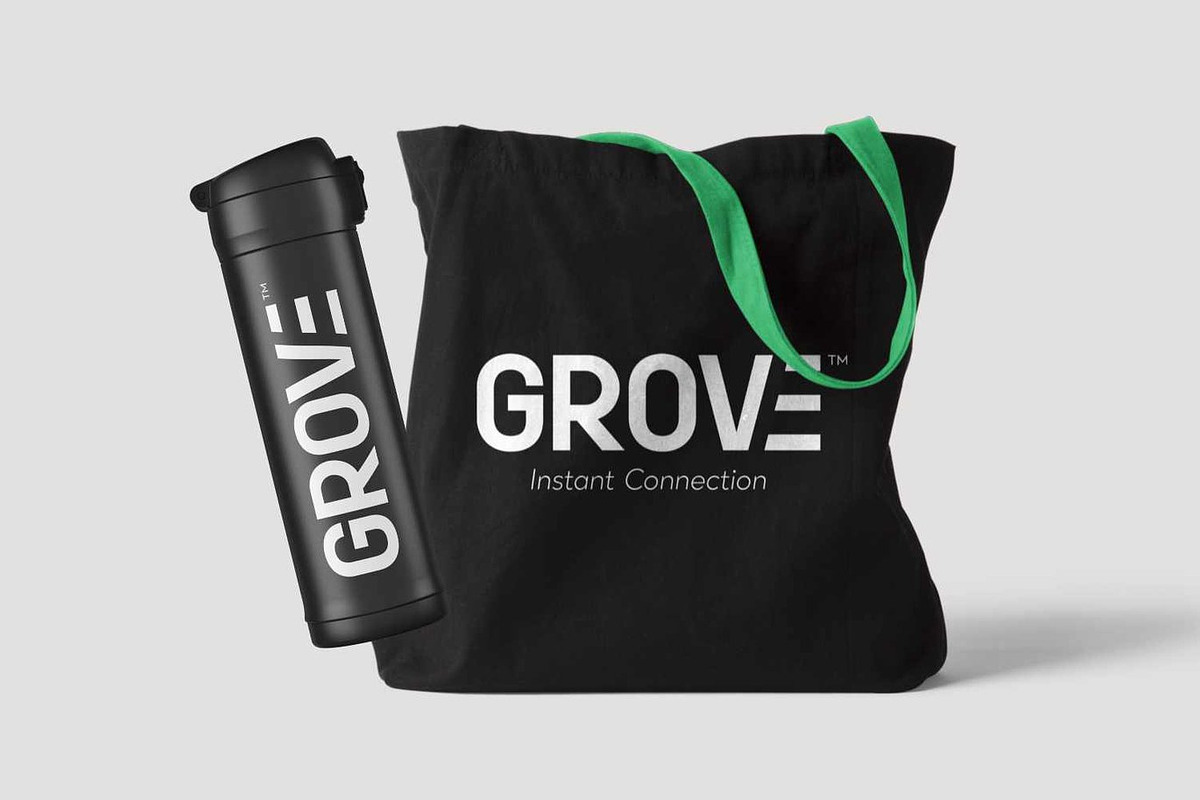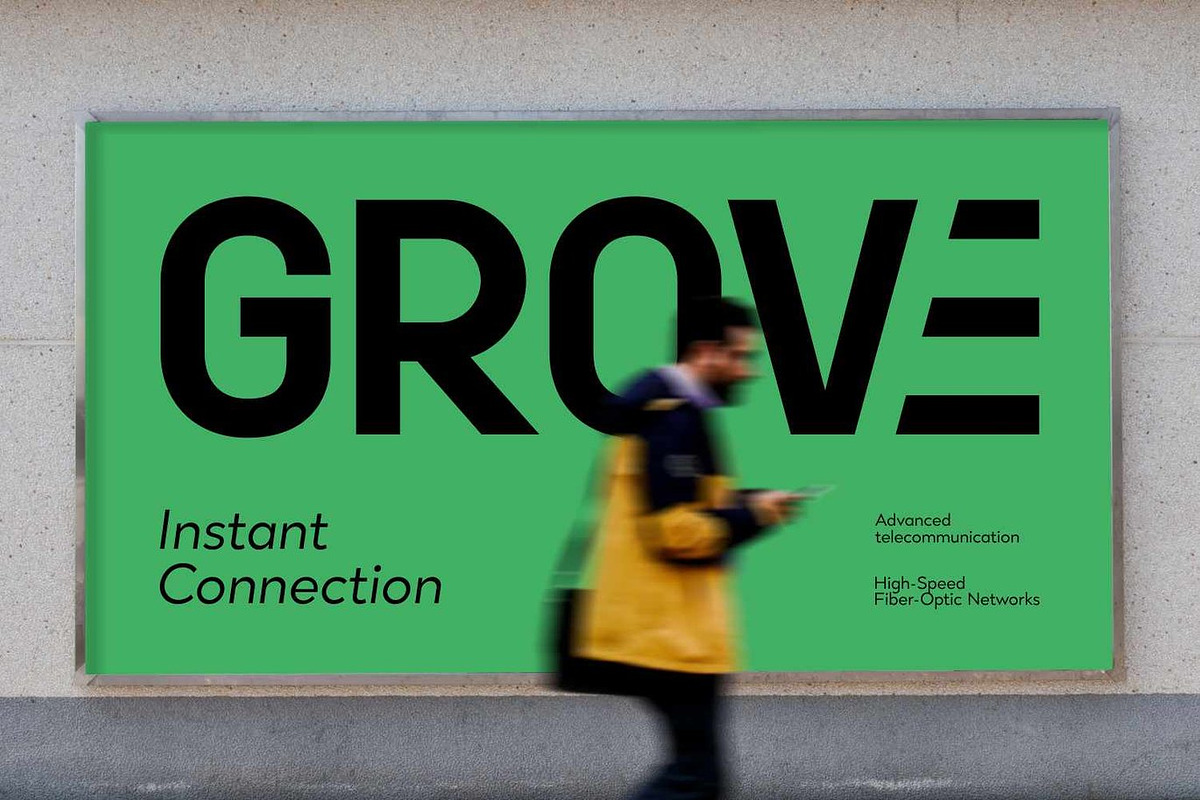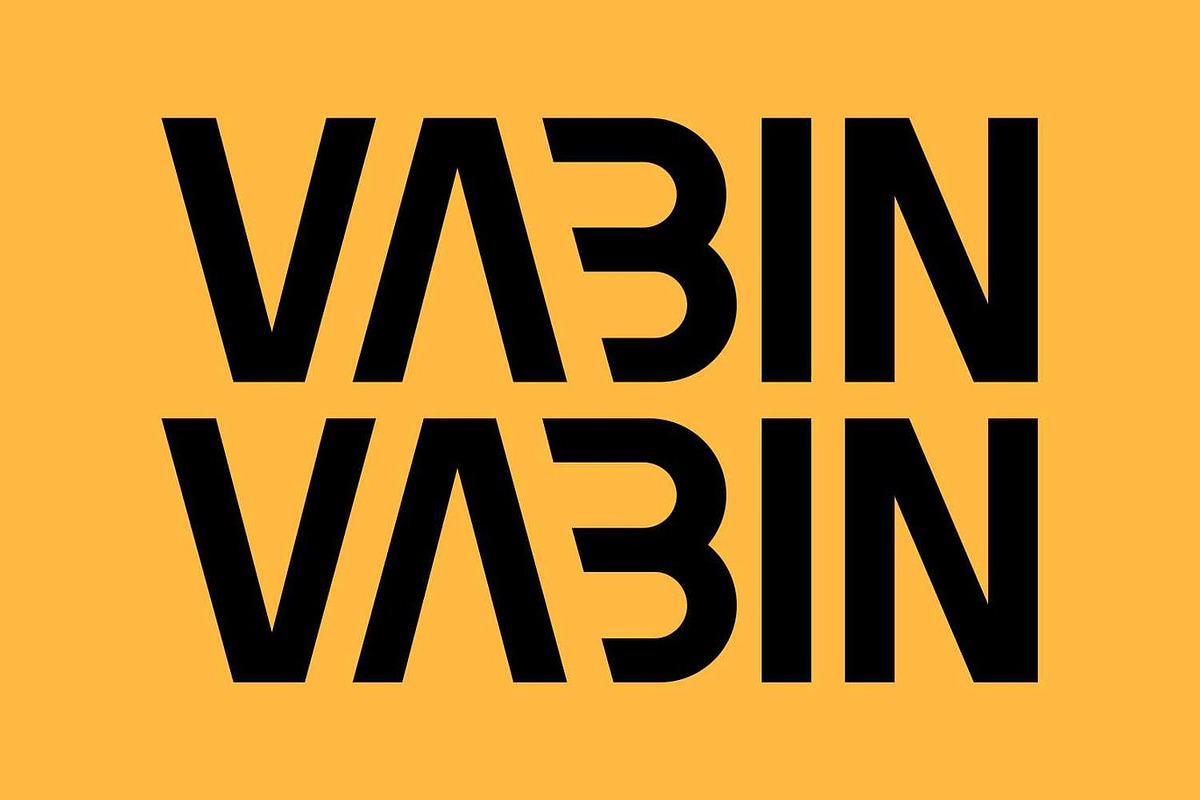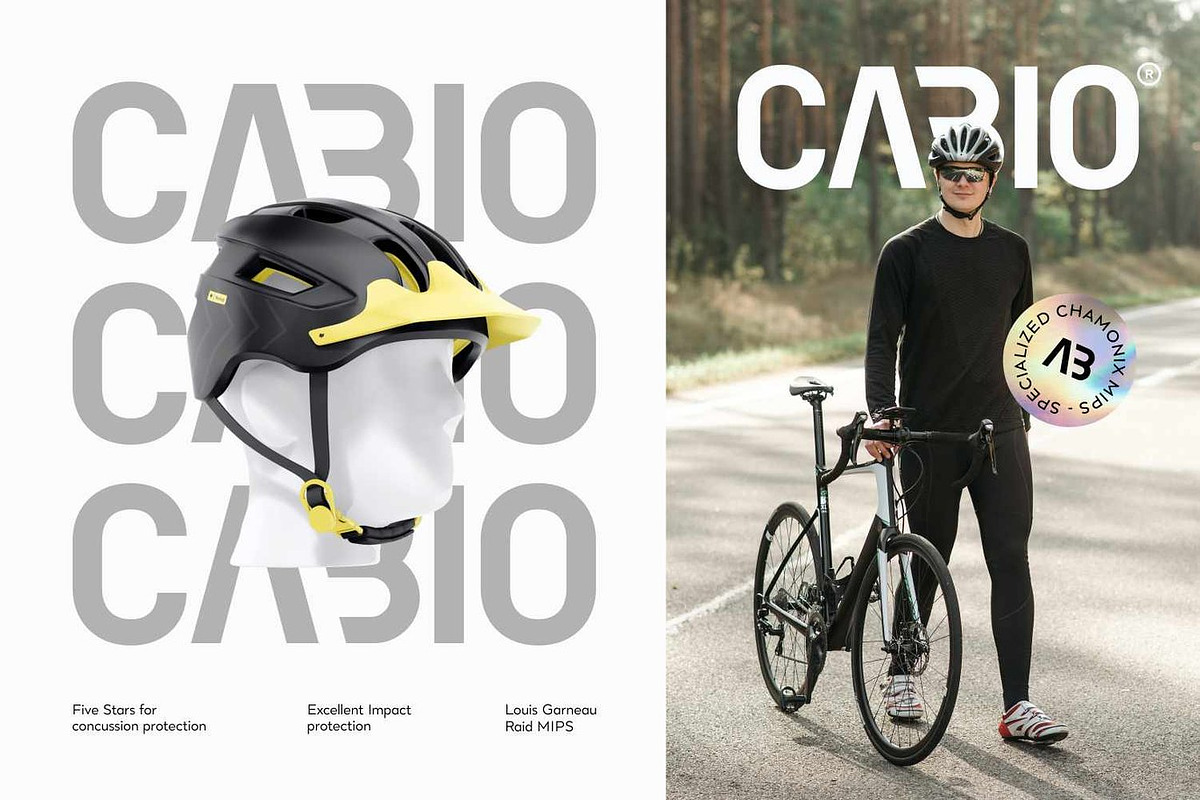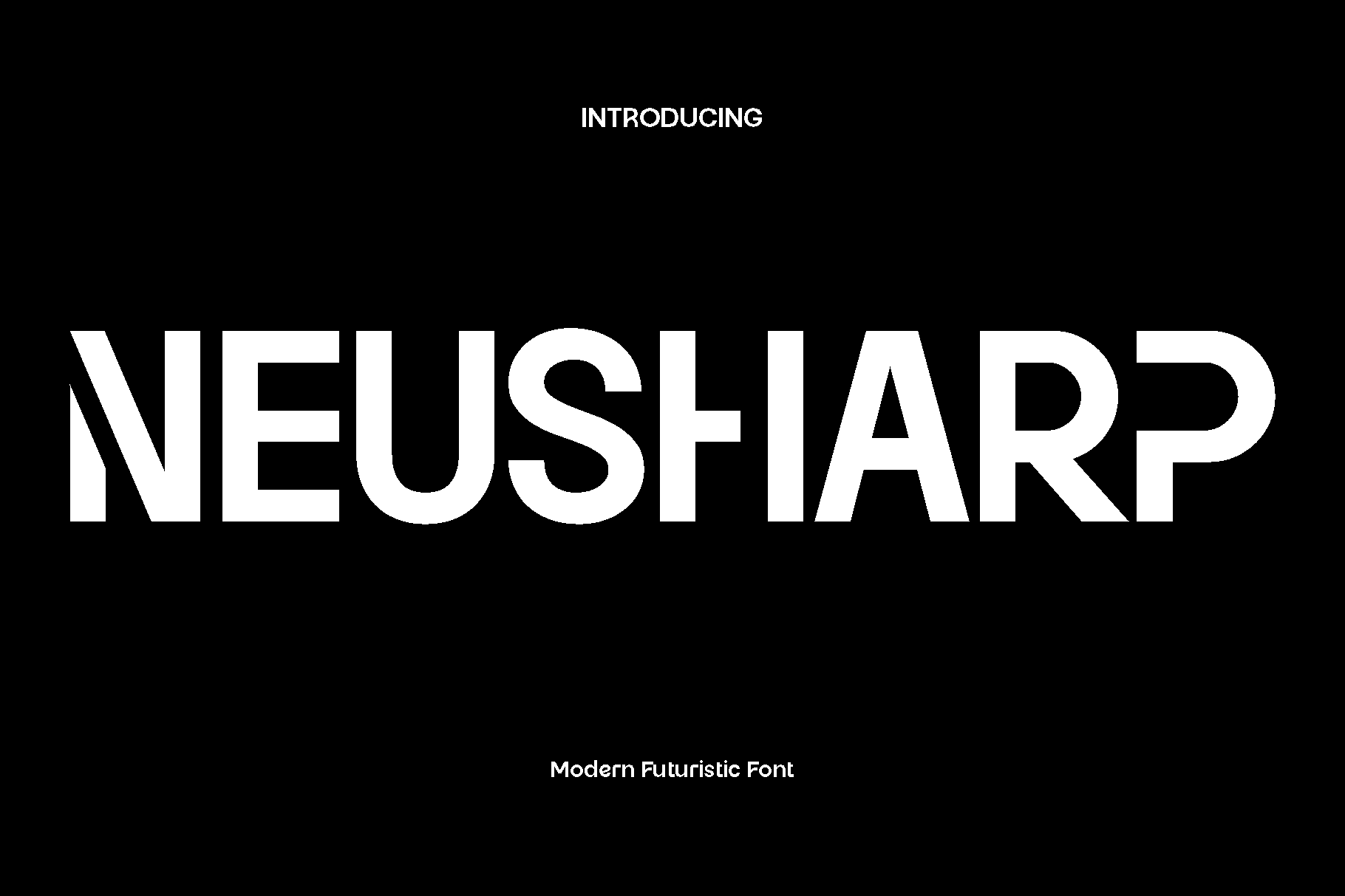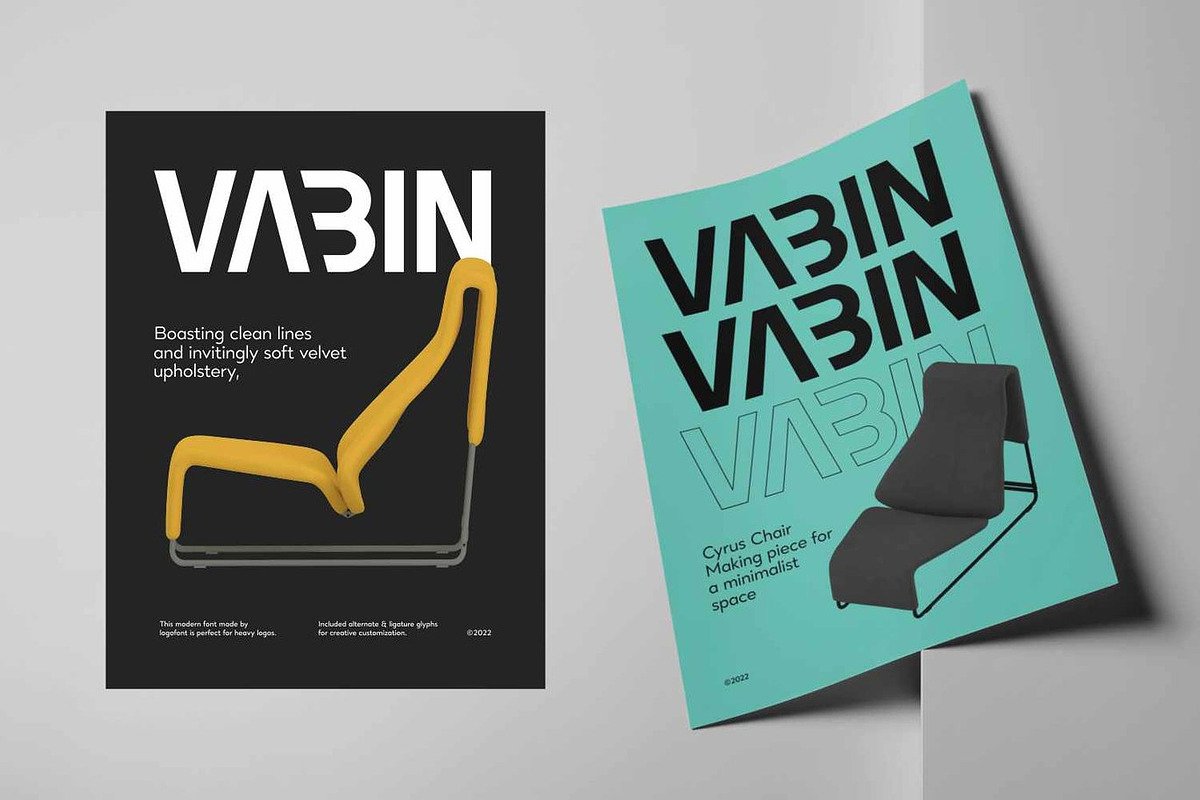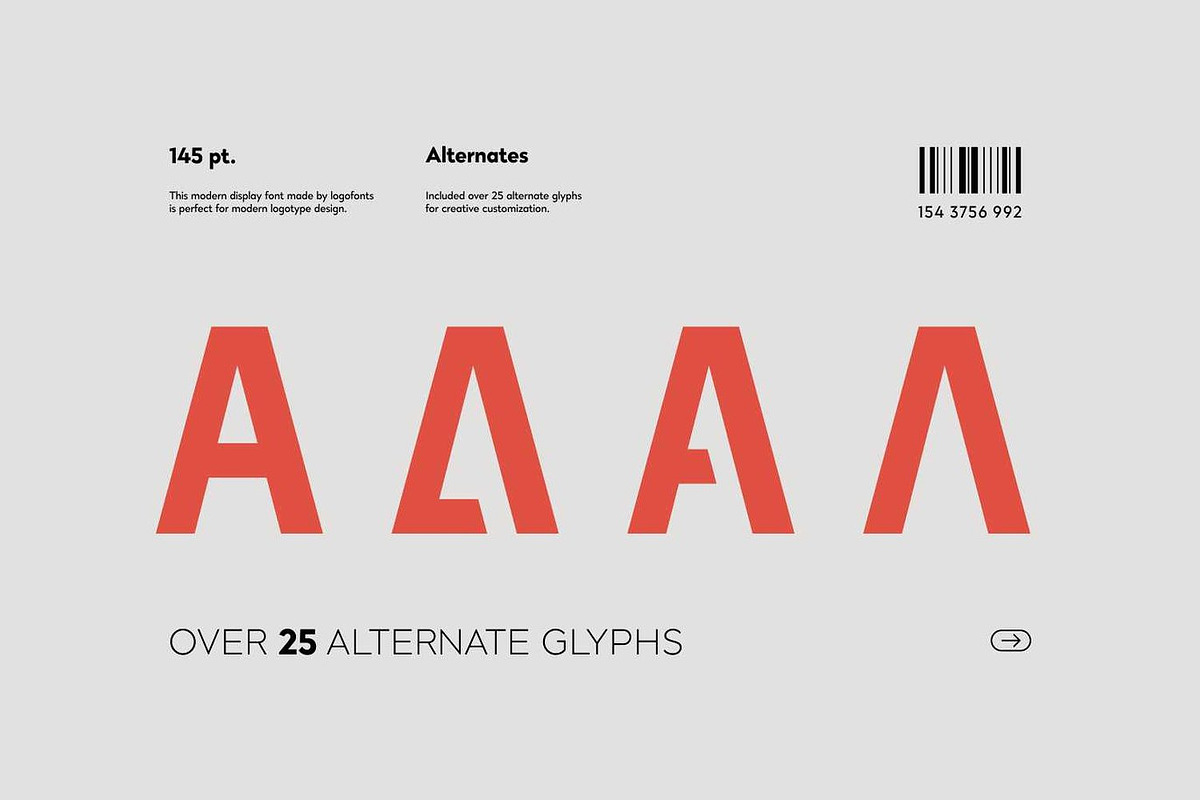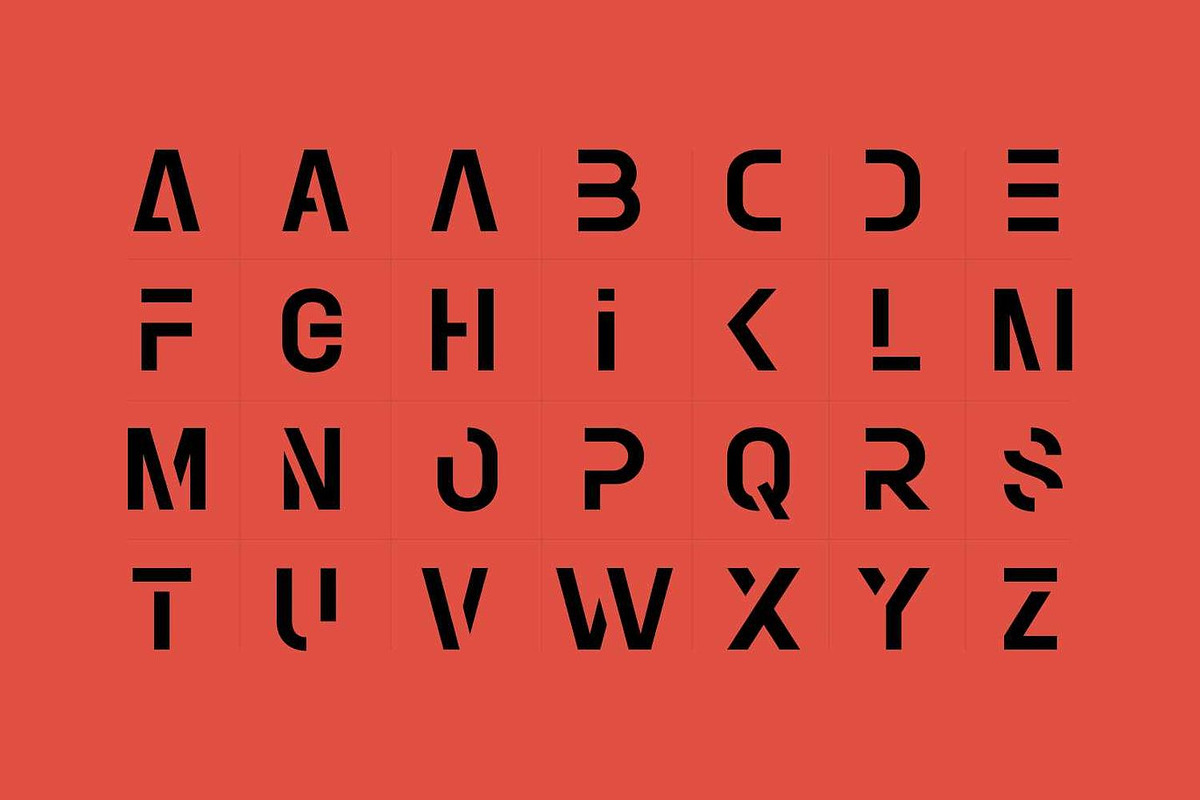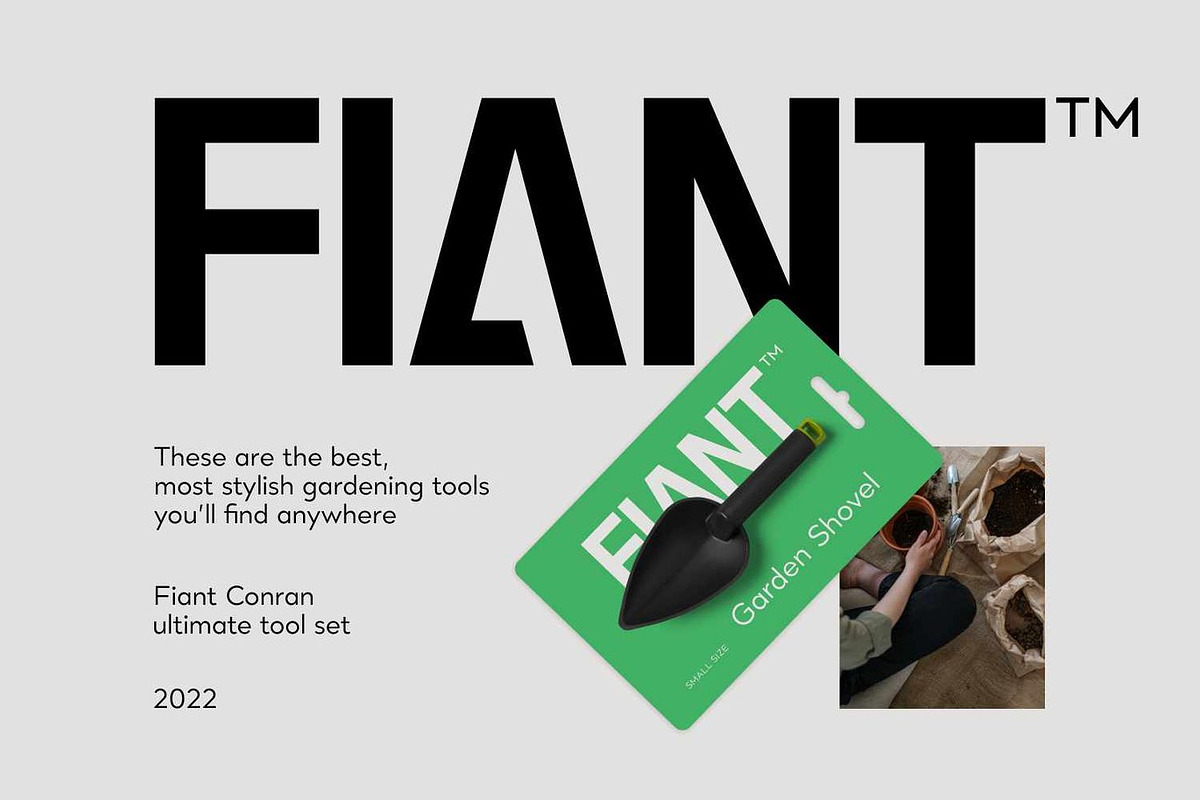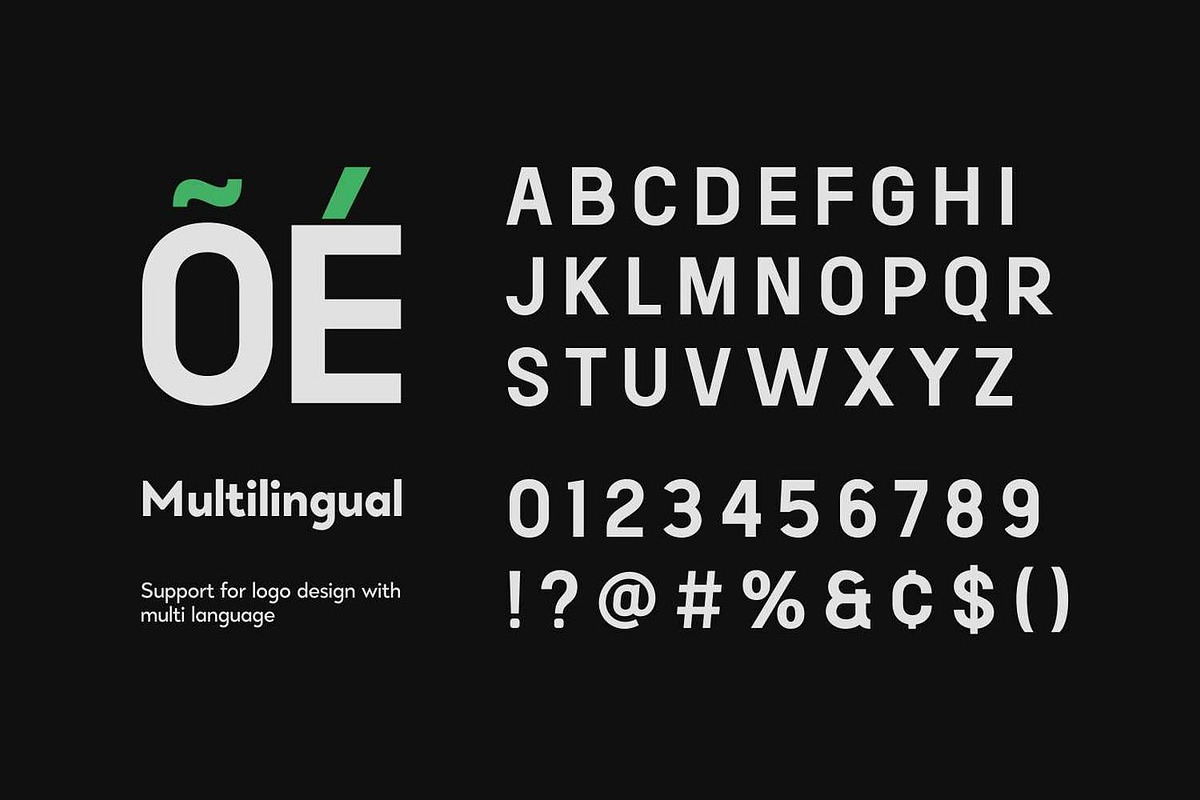
Neusharp - Modern Sans Serif Font
Neusharp is a modern sans serif typeface designed to bring a clean, sharp, and professional look to your creative projects. With its balanced letterforms and versatile style, Neusharp fits perfectly across logos, posters, headlines, websites, magazines, packaging, and stationery — making it a powerful choice for designers seeking both clarity and style.
Featuring OpenType functionality, Neusharp includes unique alternate letters and ligatures that give you endless flexibility to craft distinctive typography. Whether you’re creating a bold brand identity or sleek editorial design, Neusharp adapts beautifully to both digital and print applications.
- Modern & Minimal Sans Serif
- Alternates & Ligatures (OpenType)
- Numbers, Symbols & Punctuation
✨ Neusharp combines modern precision with timeless simplicity — making every word you design look sharp, confident, and contemporary.